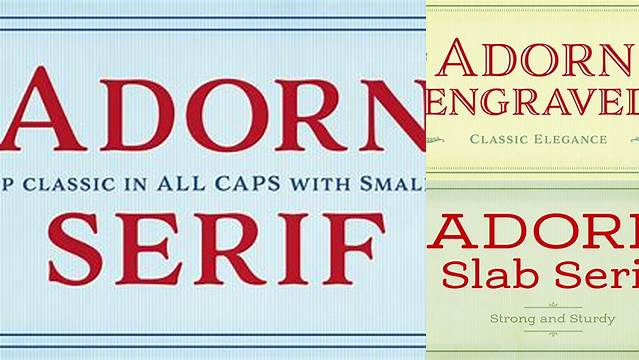
Free Adorn Smooth Serif Font: Download Now!
Hey there, design enthusiasts and creative minds! Are you on the hunt for that perfect elegant yet versatile font to elevate your projects? Well, buckle up, because we're about to dive deep into why the Adorn Smooth Serif Font is an absolute game-changer, and guess what? It's available for free download! This isn't just another font; it's a statement, a touch of class that can transform anything from your personal blog to a high-end branding campaign. We're talking about a font that blends classic serif charm with a modern, smooth finish, making it incredibly adaptable and, frankly, gorgeous. If you're tired of sifting through countless mediocre fonts, your search might just end right here. This guide is all about showing you the incredible value the Adorn Smooth Serif Font free download brings to your creative arsenal and how you can get your hands on it today. Let's get cracking and unleash your design potential!
Why You Absolutely Need the Adorn Smooth Serif Font in Your Design Toolkit
Guys, let's be real: finding a font that ticks all the boxes – beauty, readability, versatility, and affordability (especially when it's free!) – is like striking gold. The Adorn Smooth Serif Font is precisely that kind of treasure. What makes this font stand out in a sea of countless typefaces? First off, its inherent design combines the timeless appeal of a serif with an incredibly clean and smooth finish. This unique combination ensures that while it carries an air of sophistication and heritage, it never feels stuffy or outdated. Instead, it feels fresh, contemporary, and incredibly inviting. Imagine using a font that exudes professionalism for corporate documents yet feels warm and welcoming enough for a personal blog or a cozy e-book cover. That's the magic of the Adorn Smooth Serif Font. Its elegantly crafted serifs provide clear distinctions between characters, enhancing readability even in smaller sizes, making it a stellar choice for both display text and body copy. This dual functionality is incredibly valuable, as it means you won't need to juggle multiple fonts to achieve a cohesive look in your designs.
Beyond its stunning aesthetics, the Adorn Smooth Serif Font offers remarkable versatility across various design applications. For branding, its sophisticated curves can lend an air of luxury and trust to logos and corporate identities. Think about how a high-end fashion brand or a gourmet coffee shop could instantly elevate their visual appeal with this typeface. In the realm of editorial design, whether it's a sleek magazine layout, a compelling newspaper article, or a captivating book cover, the font's excellent legibility ensures that your readers can comfortably absorb content without eye strain. Moreover, its smooth lines translate beautifully to digital platforms, making it an exceptional choice for web design. It loads efficiently and renders crisply on screens of all resolutions, providing a seamless user experience. Don't underestimate the power of a cohesive typographic experience in retaining website visitors! Furthermore, for print materials like brochures, flyers, and posters, the Adorn Smooth Serif Font ensures your message is delivered with clarity and impact. It holds up well on various paper stocks and printing methods, maintaining its crispness and elegance. This adaptability makes it an indispensable asset in any designer's toolkit, from seasoned professionals to eager beginners. The fact that you can get this level of quality with the Adorn Smooth Serif Font free download is truly astonishing, making it an accessible premium resource for anyone looking to make their designs pop. It saves you budget without compromising on the visual appeal or functionality of your typography. So, if you're looking to infuse elegance, readability, and a touch of modern flair into your next project, seriously consider making the Adorn Smooth Serif Font your go-to choice. It's a decision your designs (and your clients!) will thank you for.
Unleashing Creativity: Best Uses for Your Free Adorn Smooth Serif Font
Alright, now that you're convinced about the sheer brilliance of the Adorn Smooth Serif Font, let's talk about putting it to work! Getting your hands on this free Adorn Smooth Serif Font means unlocking a world of creative possibilities. This typeface isn't just pretty; it's incredibly practical for a wide array of projects, and knowing where it shines brightest will help you maximize its impact. For starters, let's talk about branding and logo design. The elegance and smooth finish of the Adorn Smooth Serif Font make it an ideal candidate for brand identities that aim for sophistication, trustworthiness, and a timeless appeal. Imagine a luxury boutique, a high-end bakery, or a professional consultancy using this font in their logo – it instantly communicates quality and attention to detail. Its balanced letterforms ensure that even in a minimalist logo, the brand name stands out with distinction and grace. You can pair it with a simple sans-serif for taglines to create a beautiful visual hierarchy, enhancing brand recognition.
Moving into the realm of editorial and publishing design, the Adorn Smooth Serif Font truly excels. Its exceptional readability, even in long blocks of text, makes it perfect for magazines, newspapers, books, and online articles. When readers spend a significant amount of time consuming content, the font's ability to maintain legibility without causing eye fatigue is paramount. Picture a lifestyle magazine with elegant headlines and engaging body text all rendered beautifully with this font. For bloggers and online content creators, integrating the Adorn Smooth Serif Font into your website's typography can significantly enhance the user experience, making your articles a pleasure to read. It adds a professional touch that sets your content apart from the noise. Furthermore, for web design, the smooth rendering of the Adorn Smooth Serif Font on various devices and screen sizes ensures a consistent and appealing visual experience. While it's a serif, its clean lines prevent it from looking clunky or dated online. It pairs wonderfully with minimalist layouts and can be effectively used for headlines, call-to-action buttons, and even subheadings to guide user attention.
But wait, there's more! Think about marketing and promotional materials. Whether you're designing sleek brochures, eye-catching flyers, captivating social media graphics, or compelling advertisements, the Adorn Smooth Serif Font can deliver your message with impact and style. For event invitations – be it a wedding, a gala, or a corporate seminar – its refined aesthetic adds a touch of class that signals the importance of the occasion. Even for personal projects, like custom stationery, scrapbooking, or creating personalized gifts, this font can infuse a handcrafted feel with professional polish. Remember, the beauty of having the Adorn Smooth Serif Font free download is that you can experiment without any financial commitment. Try it out in different contexts, with various color palettes, and alongside other fonts. A pro tip: experiment with letter spacing (kerning and tracking) to fine-tune its appearance for different sizes and applications. For headlines, you might want to tighten the kerning slightly to create a more compact, impactful look, while for body text, maintaining standard spacing is crucial for readability. This versatility makes the Adorn Smooth Serif Font an invaluable asset, allowing your creativity to flow freely across a myriad of design challenges. Don't be afraid to push its boundaries and discover new ways to make your projects truly shine with this fantastic typeface.